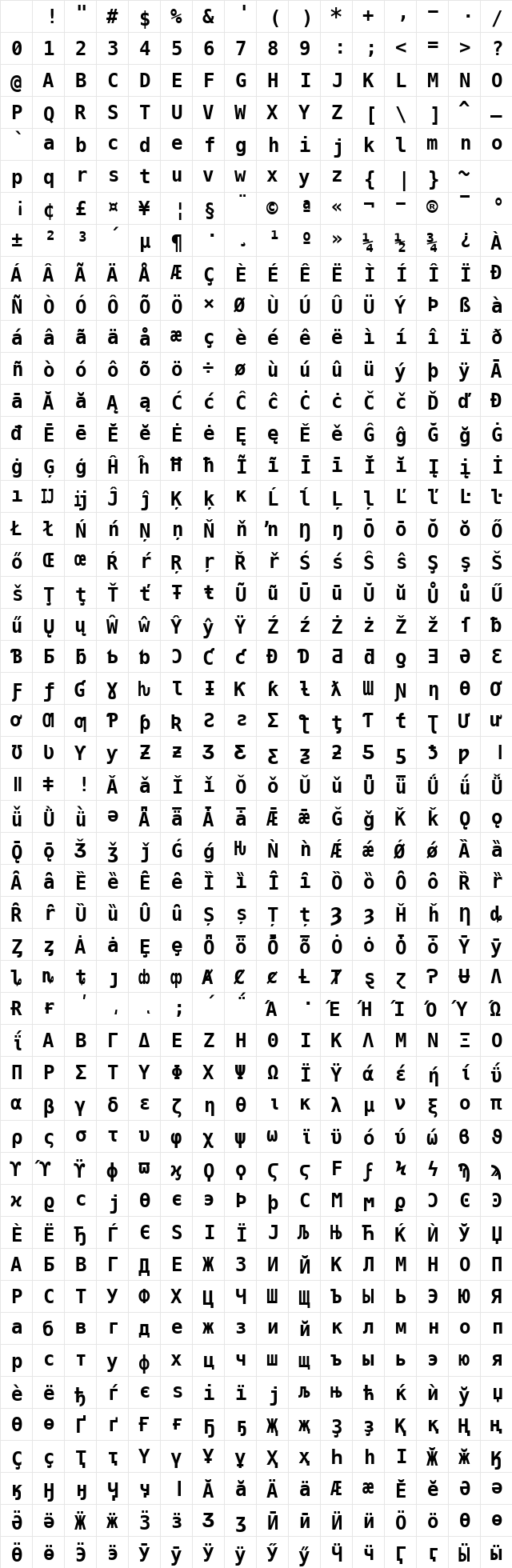
Complete MesloLGM NF Bold glyph index. Displaying only characters natively supported by MesloLGM NF Bold font.
MesloLGM NF is a composed and adaptable typeface that performs quietly and consistently across a wide range of design contexts. Its bold stroke weight gives it real presence on the page.